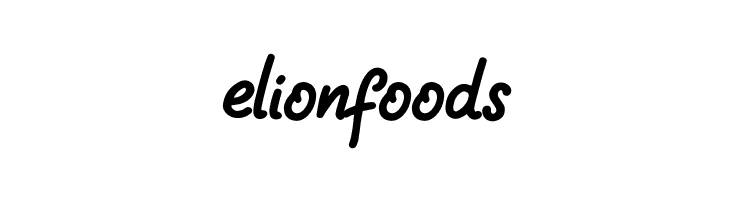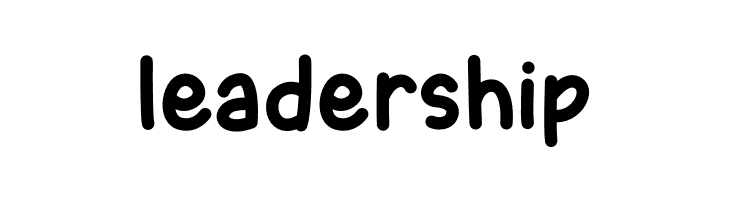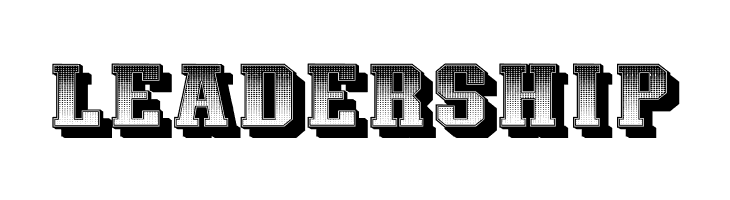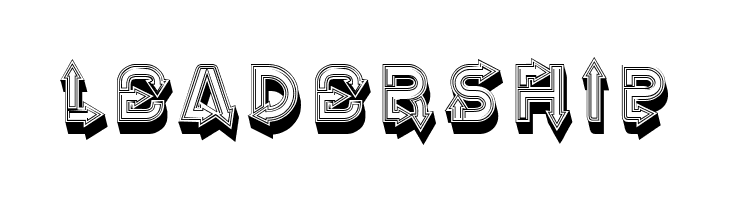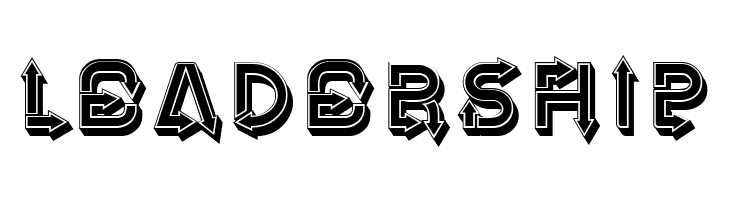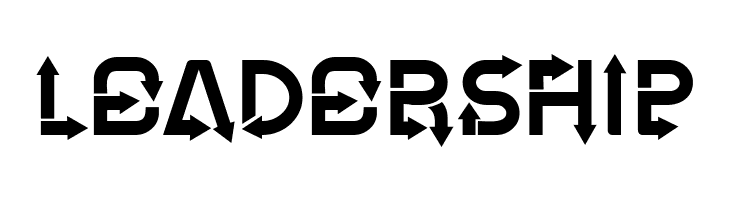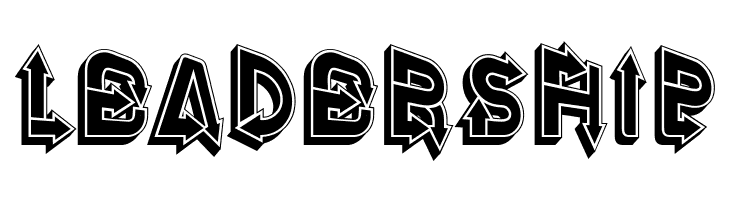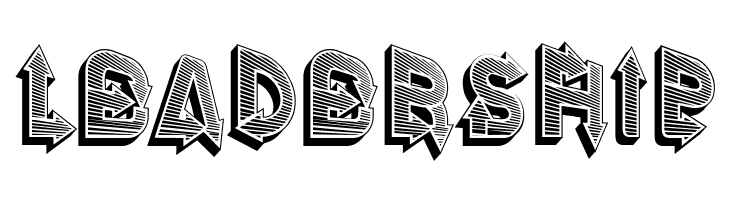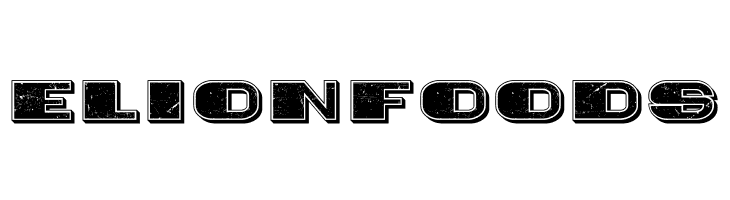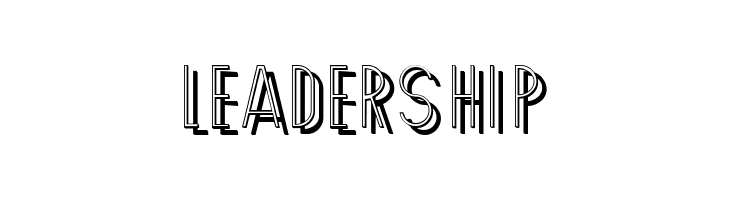
A bold, playful font with exaggerated, cartoon-like letterforms.
A graceful and elegant script font with flowing, interconnected characters.
A whimsical, cursive script font with elegant, flowing strokes.
A bold, geometric font with a digital, futuristic style.
A bold, geometric font with a 3D effect, perfect for modern designs.
A bold, three-dimensional font with a modern and dynamic style.
A fluid and elegant script font with dynamic cursive letterforms.
A bold, expressive script font with fluid strokes and dynamic curves.
An elegant, flowing script font with delicate, cursive letterforms.
A bold, cursive font with interconnected characters and a modern calligraphic style.
A graceful and elegant script font with flowing cursive letterforms.
A modern, artistic font with smooth curves and sharp angles, ideal for creative projects.
A modern, artistic font with geometric and flowing elements.
A bold, italic script font with dynamic curves and a modern flair.
An elegant italic font with a flowing, cursive style and moderate stroke thickness.
A modern, hollow outline font with a creative and artistic style.
A modern, hollow, and inverse font with a futuristic style.
A whimsical and modern font with elongated, curved strokes and thin lines.
A modern, playful font with thin lines and creative curves.
An elegant script font with flowing, cursive letterforms and intricate swashes.
Intricate, cryptic symbols resembling ancient runes.
A bold, decorative font with a vintage, three-dimensional style.
A bold, distressed font with a vintage, industrial style.
A modern, outline-style font with a bold, three-dimensional effect.
A playful and elegant script font with a handwritten touch.
A modern, cursive font with elegant, flowing letters and moderate contrast.
A playful, hand-drawn font with a casual and friendly style.
A playful, handwritten font with rounded edges and a casual style.